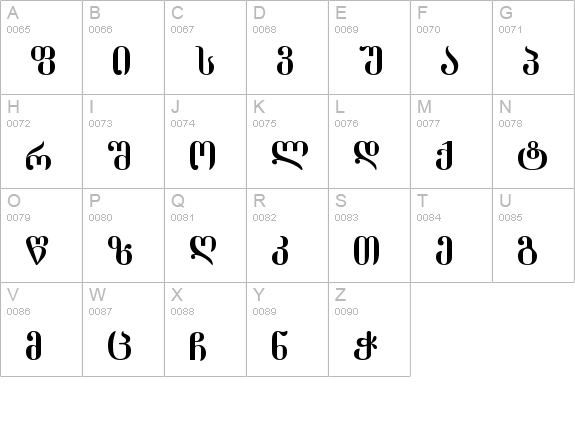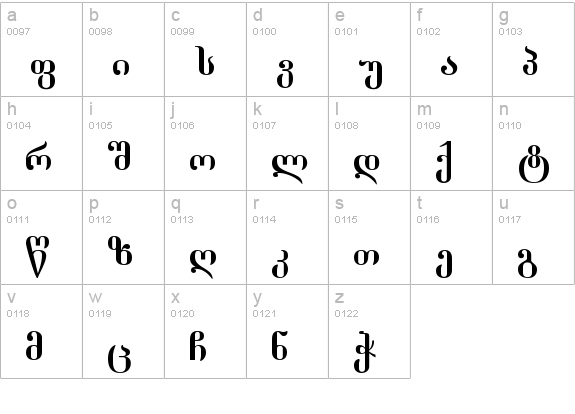
Dumbadze-ITV font is a stunning display typeface that exudes elegance and sophistication. With its unique blend of modernity and classic charm, this font is perfect for adding a touch of luxury to any design project. Its sleek lines and intricate details make it a standout choice for logos, branding, and headlines. What sets Dumbadze-ITV font apart is not just its aesthetic appeal, but also its versatility. Whether you're creating a poster, website, or packaging design, this font will elevate your work to new heights. The best part? Dumbadze-ITV font is available for free download at FontsMarket.com. So you can add this beautiful typeface to your collection without breaking the bank. Don't miss out on the opportunity to enhance your designs with the elegance of Dumbadze-ITV font.